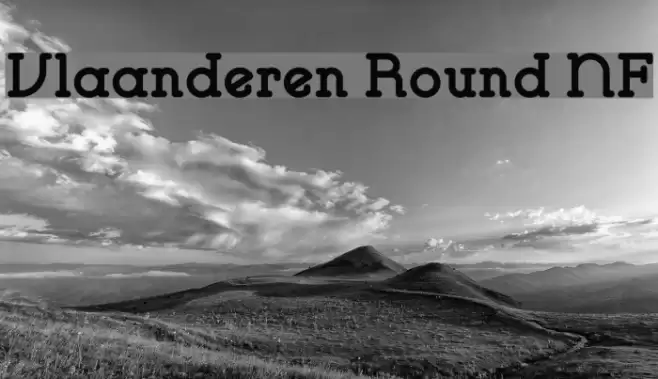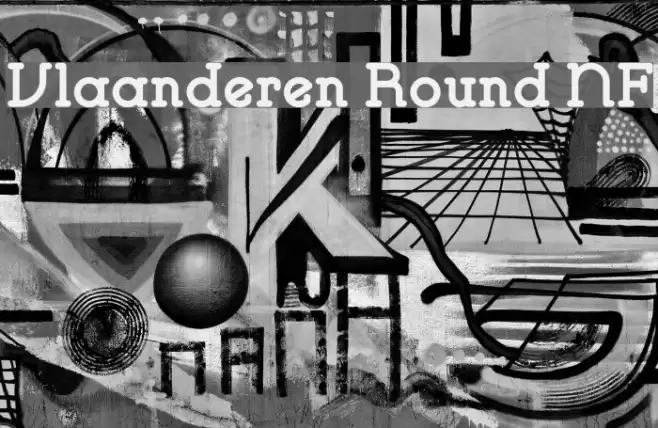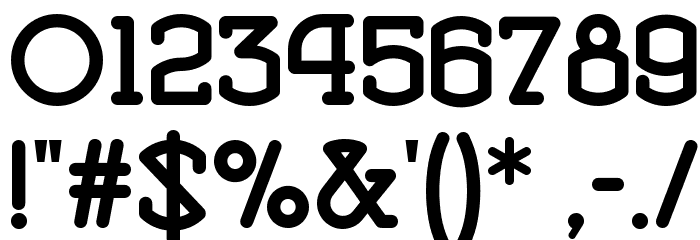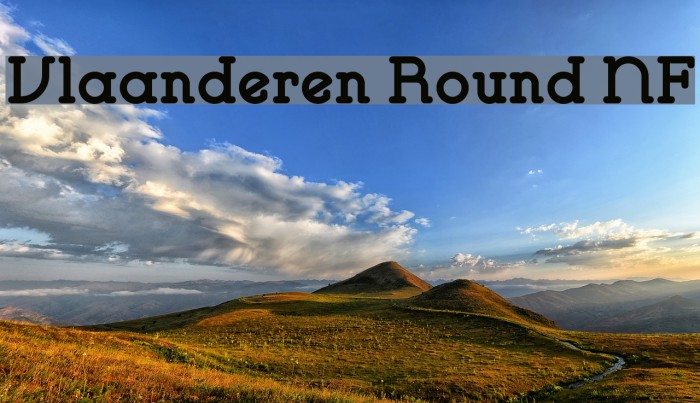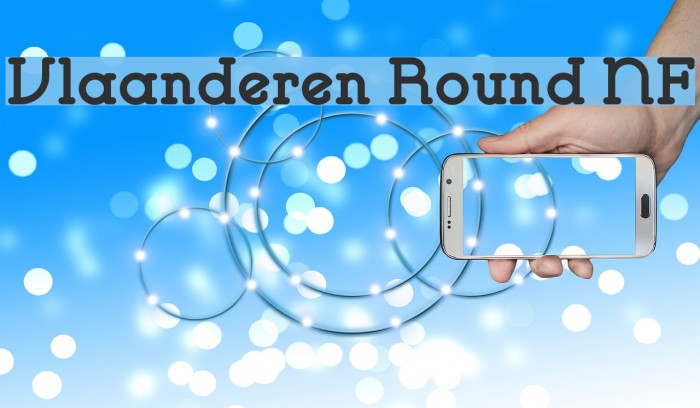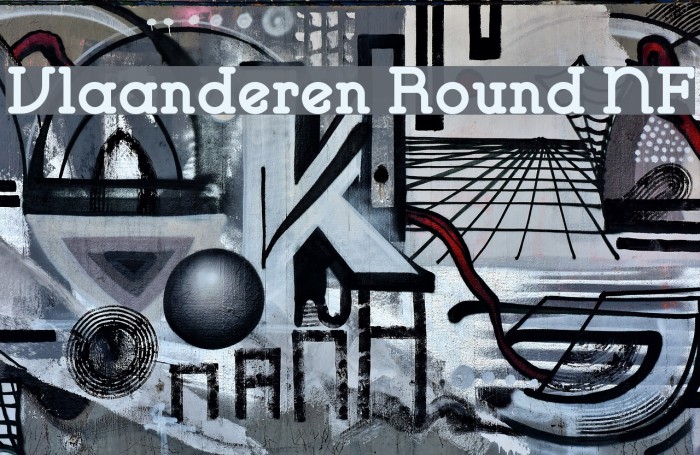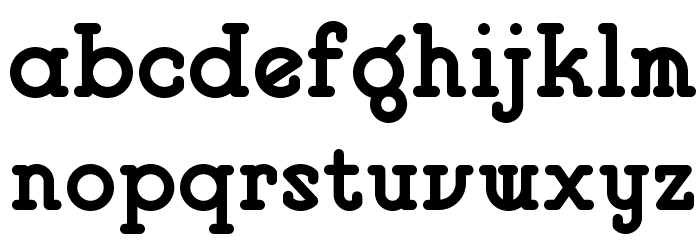
Vlaanderen Round NF Font
Vlaanderen Round NF Description
This font features a playful and rounded style, characterized by its bold and smooth curves. The letters have a consistent stroke width, giving it a uniform appearance. The rounded terminals and soft edges create a friendly and approachable look, making it suitable for casual and informal designs. The numerals and special characters maintain the same rounded aesthetic, ensuring cohesion across all glyphs. Its boldness and rounded form make it stand out, while the consistent spacing between characters ensures readability.
A playful, rounded font with bold, smooth curves and consistent stroke width from Serif fonts.
- Proposed Projects: Ideal for children's books, playful branding, casual invitations, and friendly product packaging.
- Overall Style: Playful